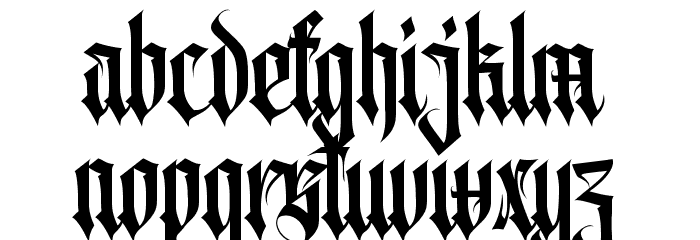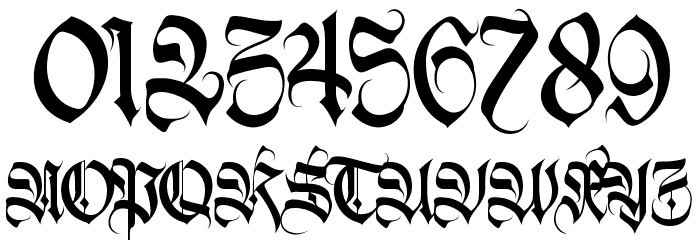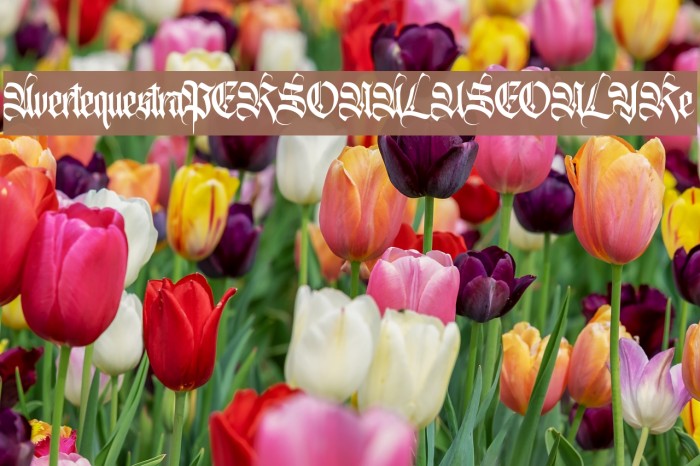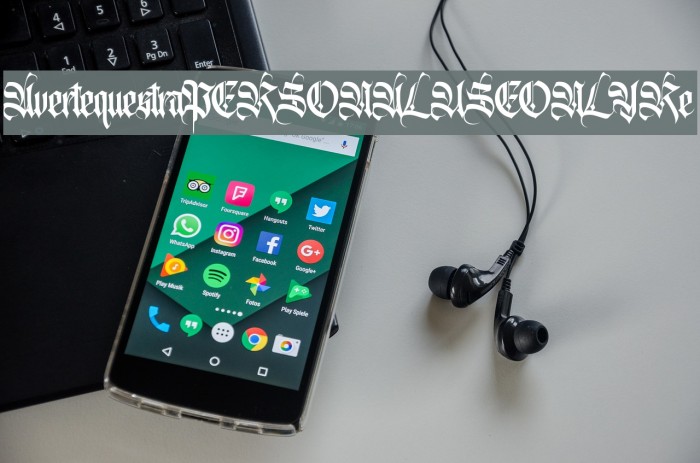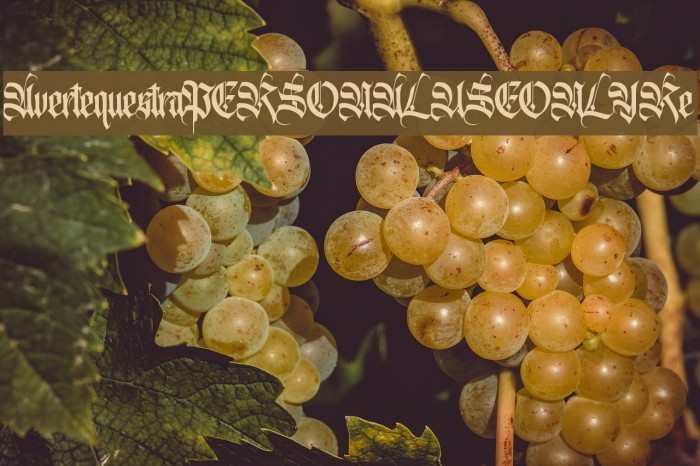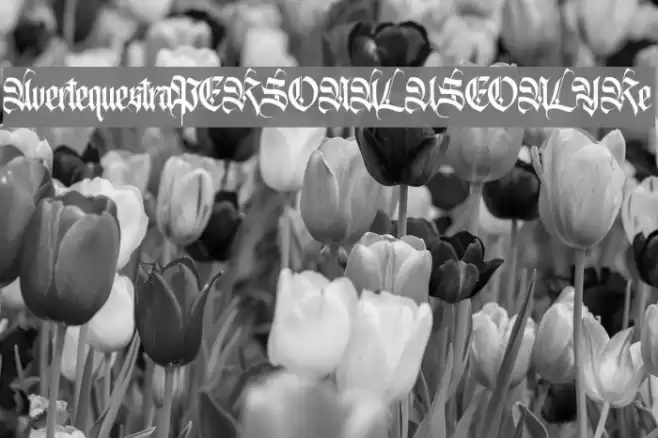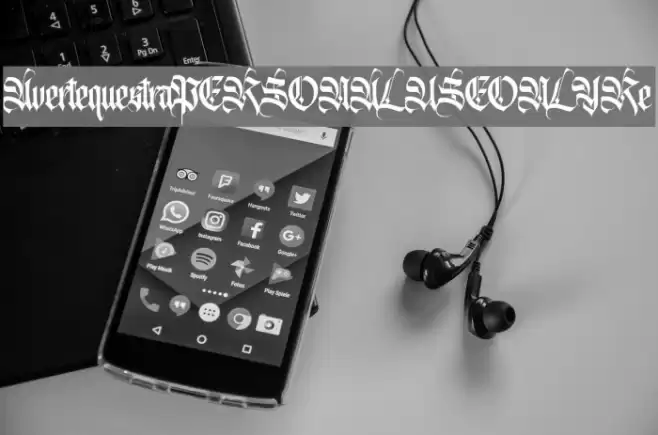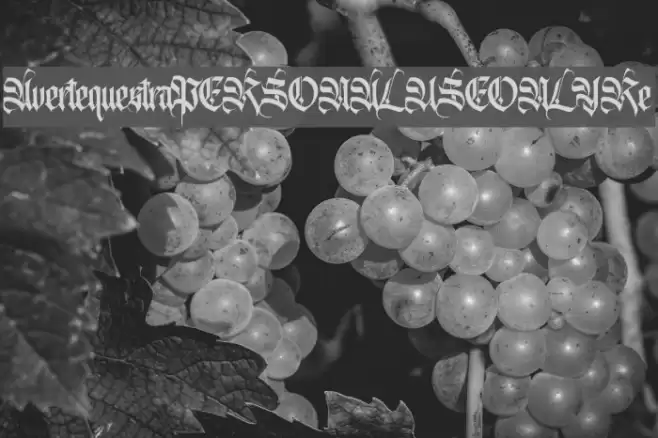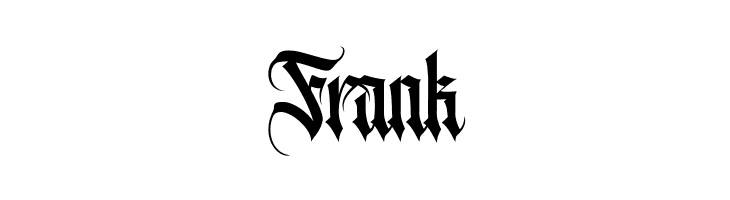
AvertequestraPERSONALUSEONLY-Re Font
This font exhibits a bold and intricate design, reminiscent of traditional blackletter styles. The characters are highly decorative, with elaborate curves and sharp angles that create a sense of drama and elegance. The uppercase letters are particularly ornate, featuring complex flourishes that enhance their visual impact. The lowercase letters maintain a consistent style, though they are slightly more subdued in their embellishments. Numbers and special characters follow the same ornate pattern, ensuring a cohesive look across all glyphs. The overall appearance is striking and commands attention, making it ideal for projects that require a strong visual presence.
A bold, decorative blackletter-style font with intricate details.
- Proposed Projects: Suitable for tattoo designs, gothic-themed posters, album covers, or any project requiring a dramatic and eye-catching typeface.